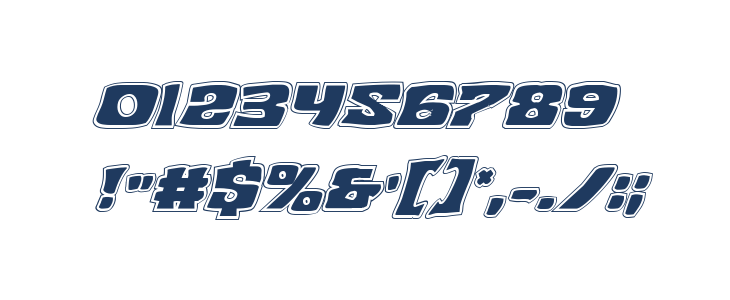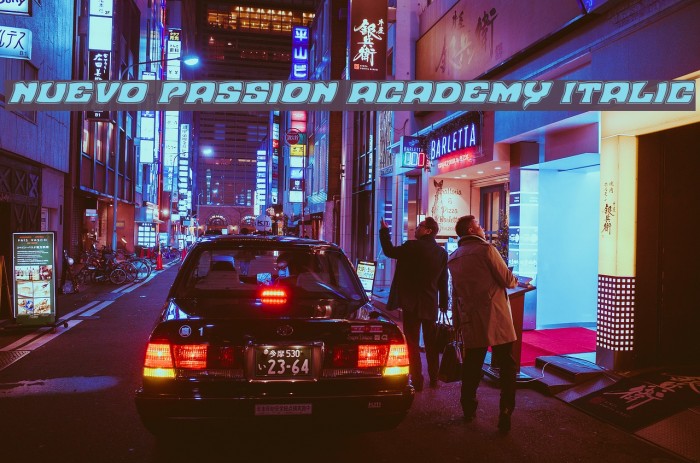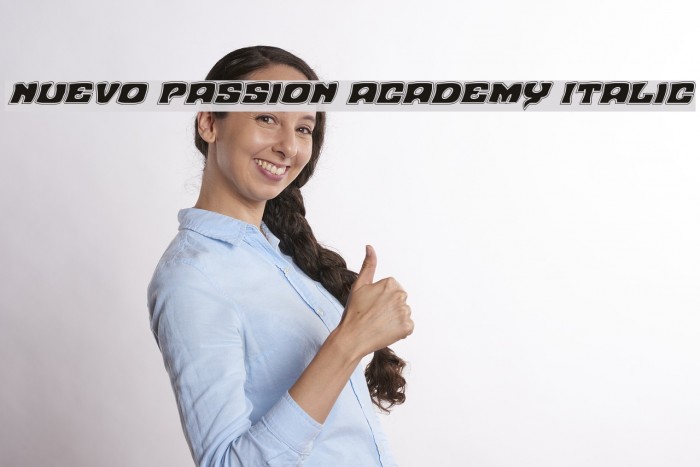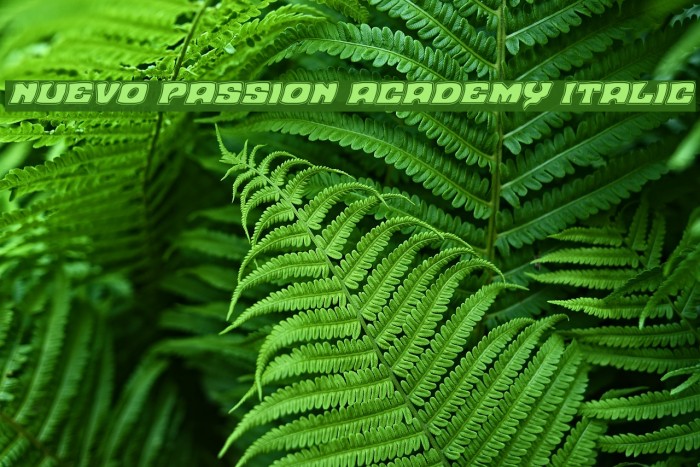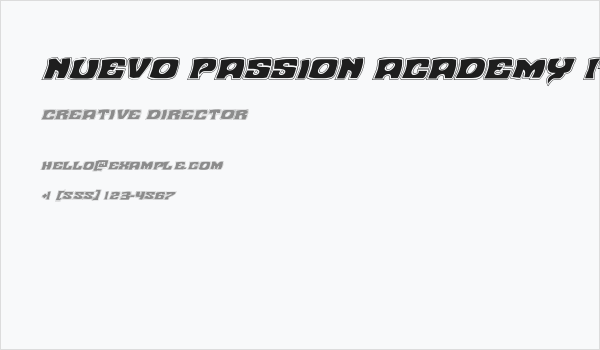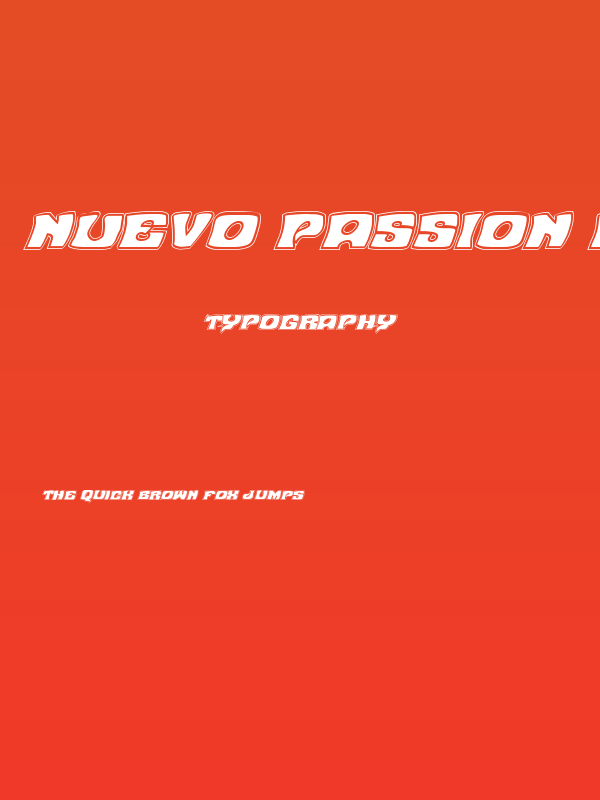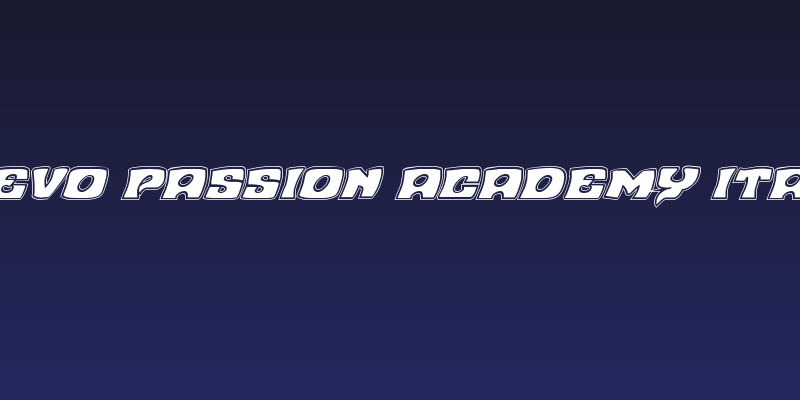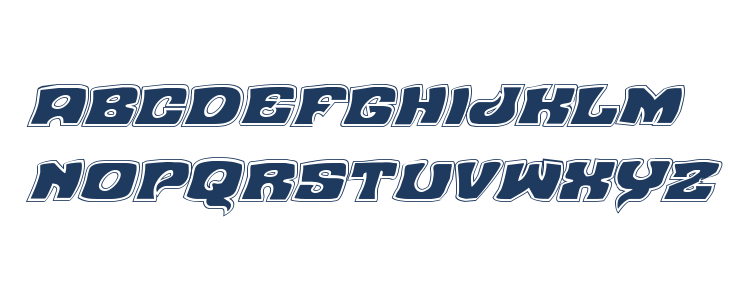
Nuevo Passion Academy Italic Font
Nuevo Passion Academy Italic Description
This font features a bold and dynamic style with a strong presence, characterized by thick strokes and a slight italic slant. The letters are outlined, giving them a three-dimensional appearance, which adds depth and a sense of motion. The uppercase and lowercase letters maintain a consistent style, with sharp edges and a modern flair. The numerals and special characters follow the same design principles, ensuring uniformity across all glyphs. This font is ideal for creating eye-catching headlines and titles, where a bold statement is needed.
| Proposed Projects | Ideal for sports branding, dynamic posters, and modern advertising campaigns. |